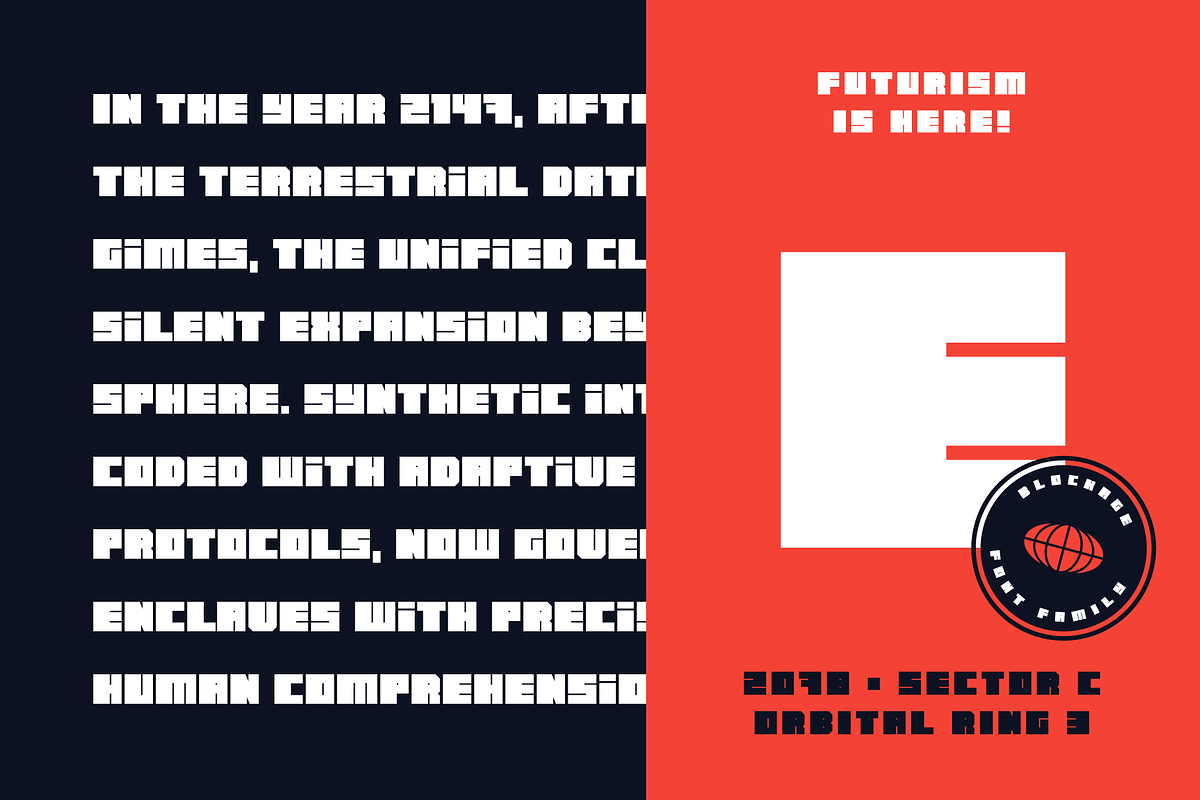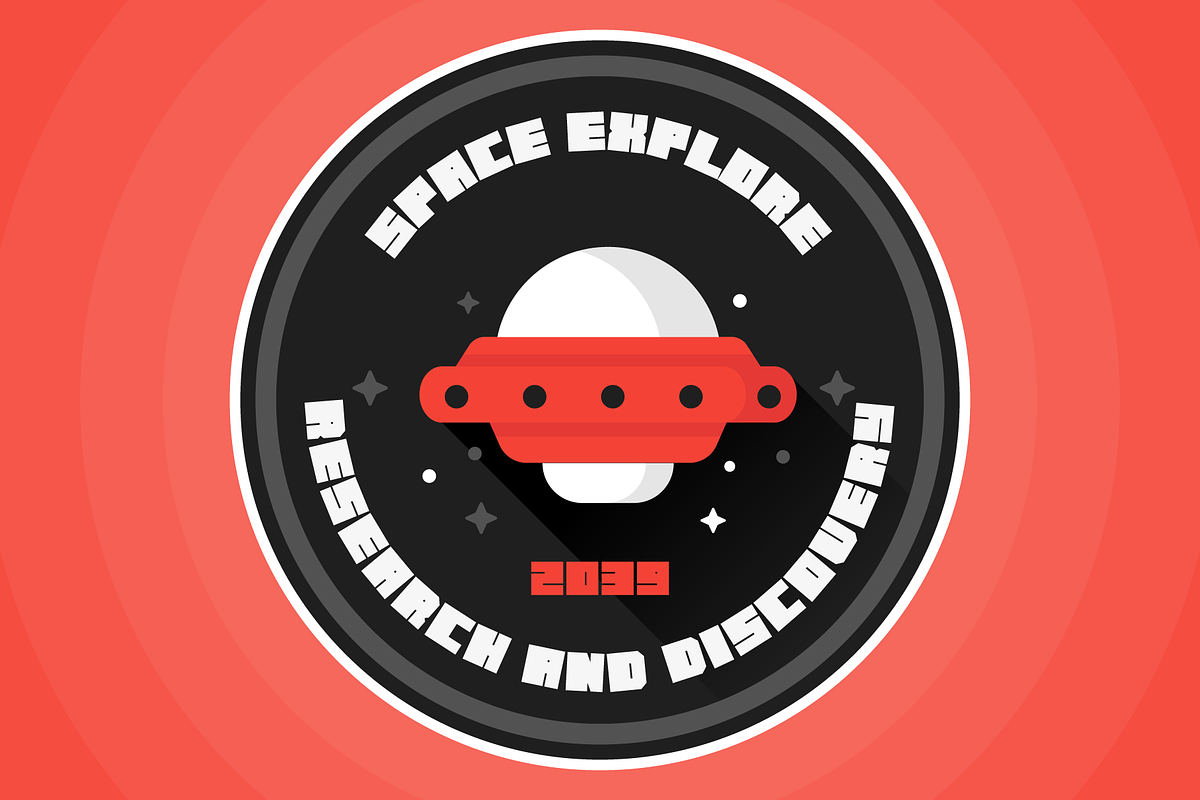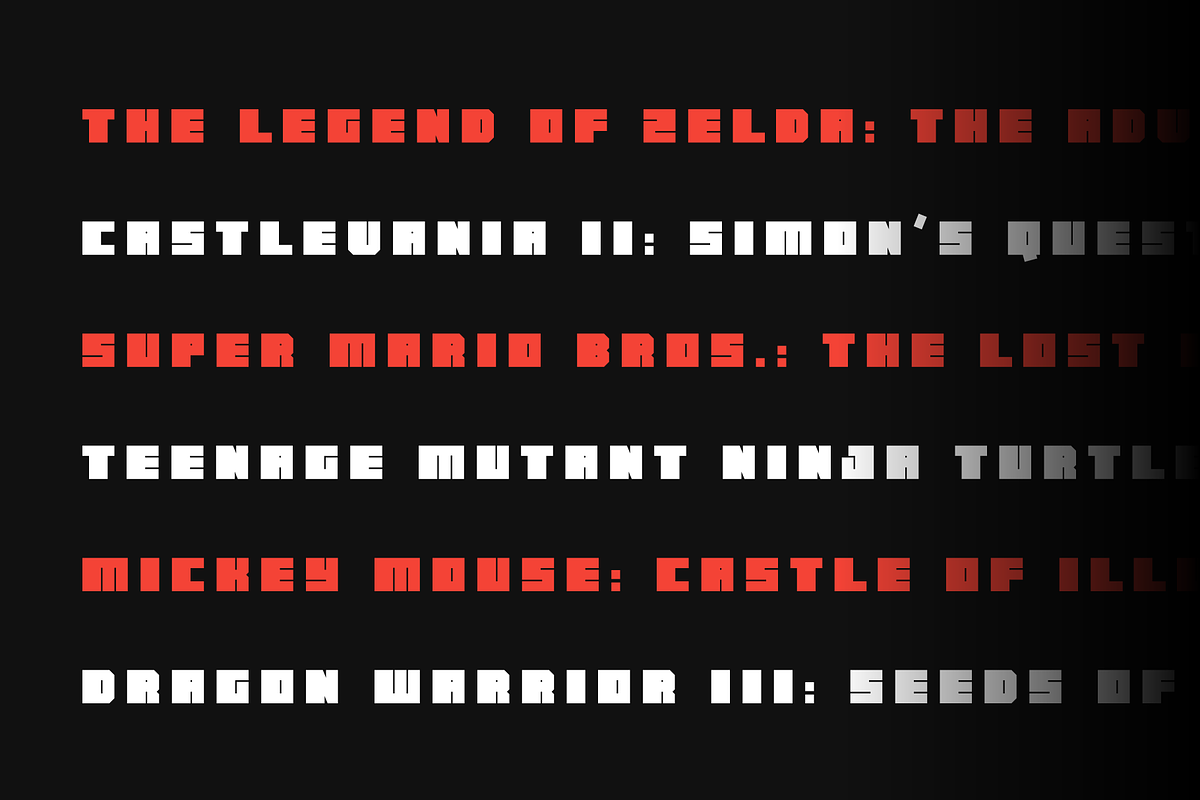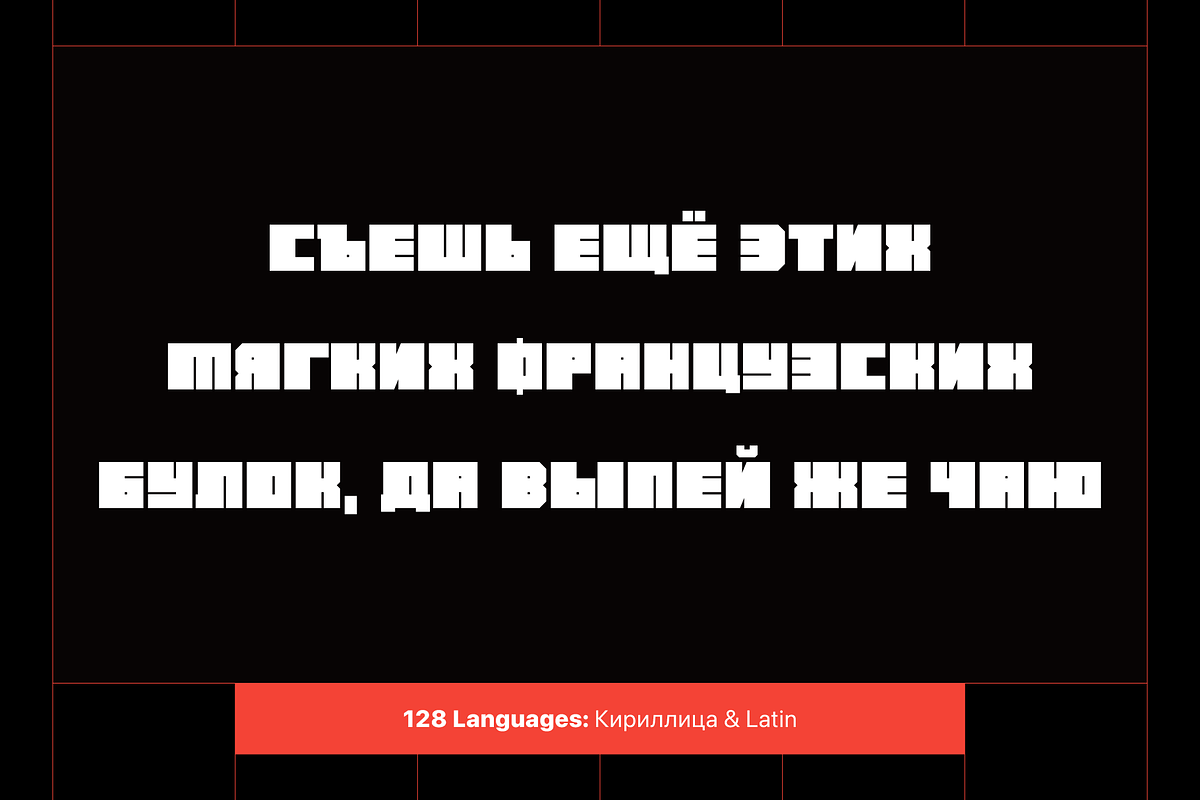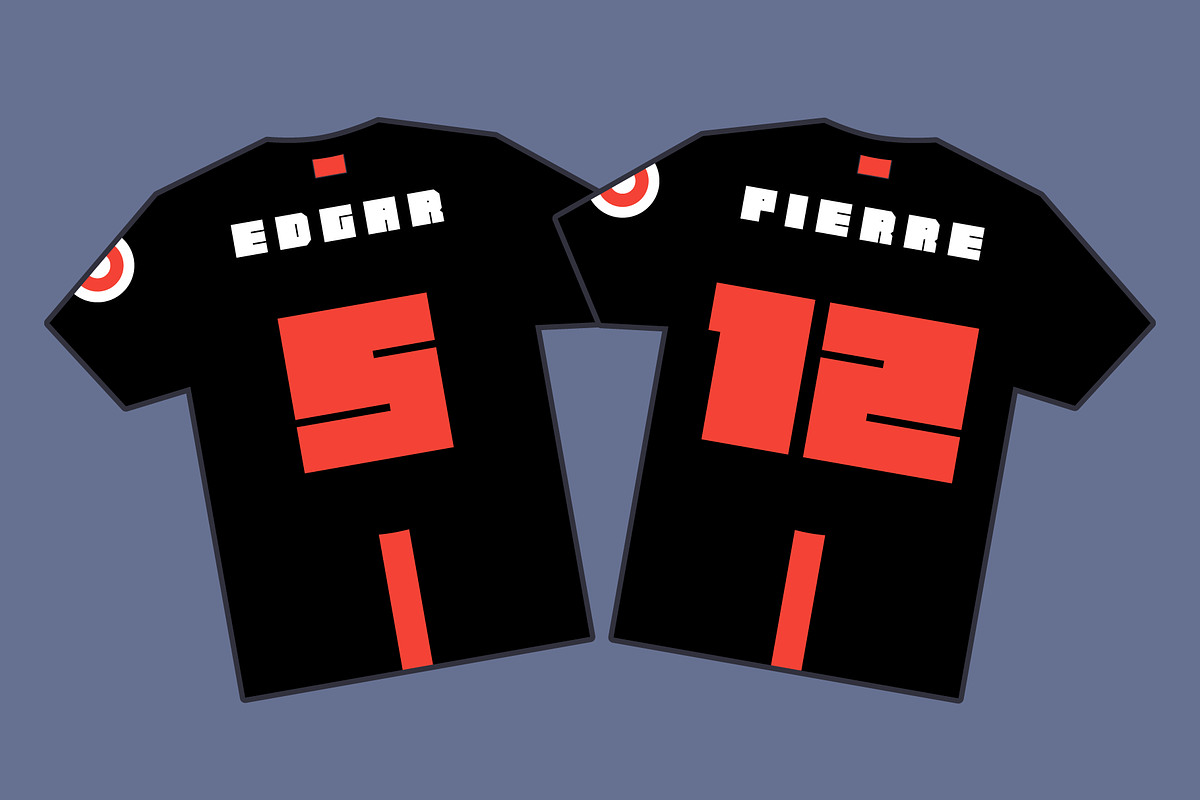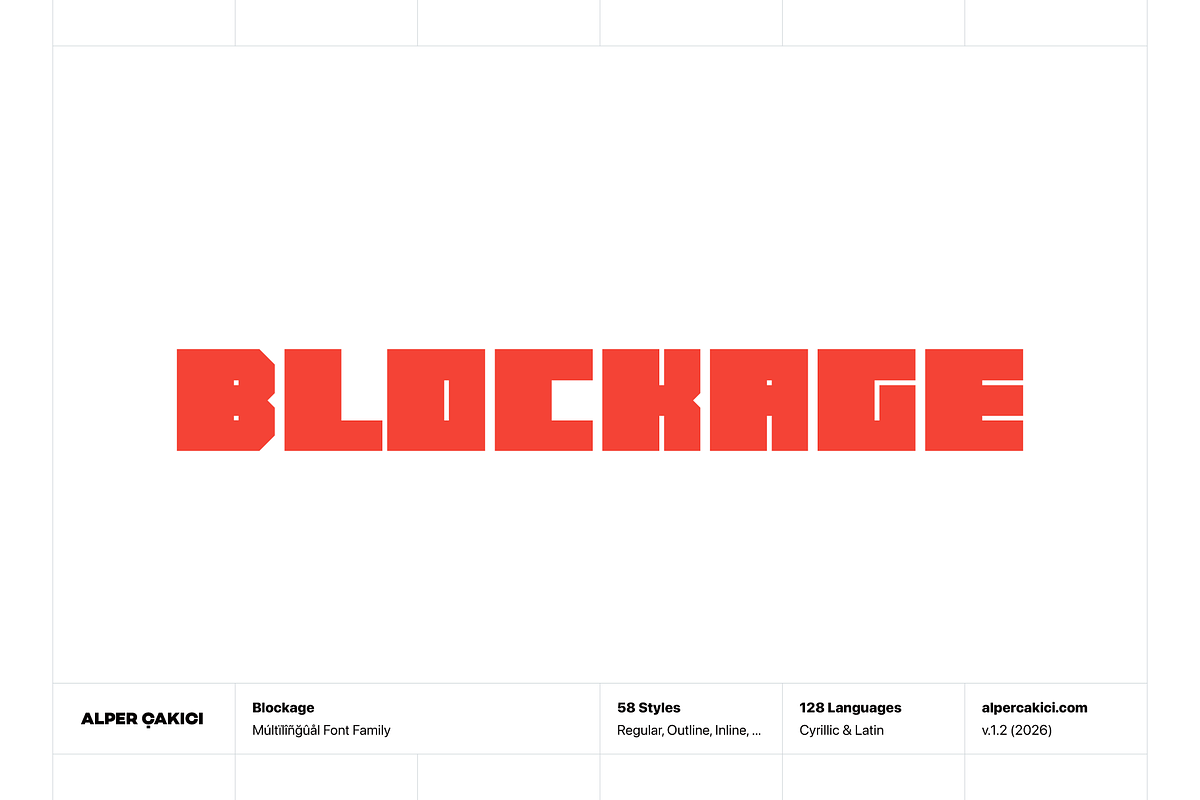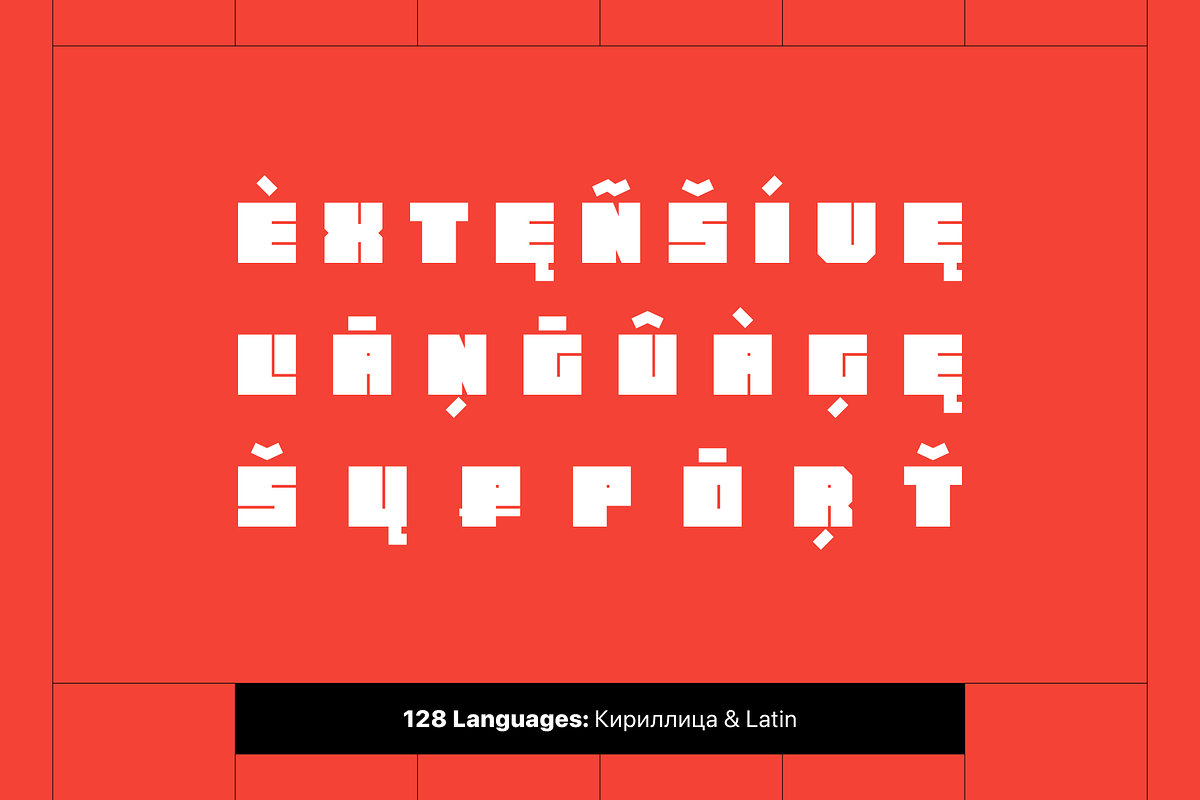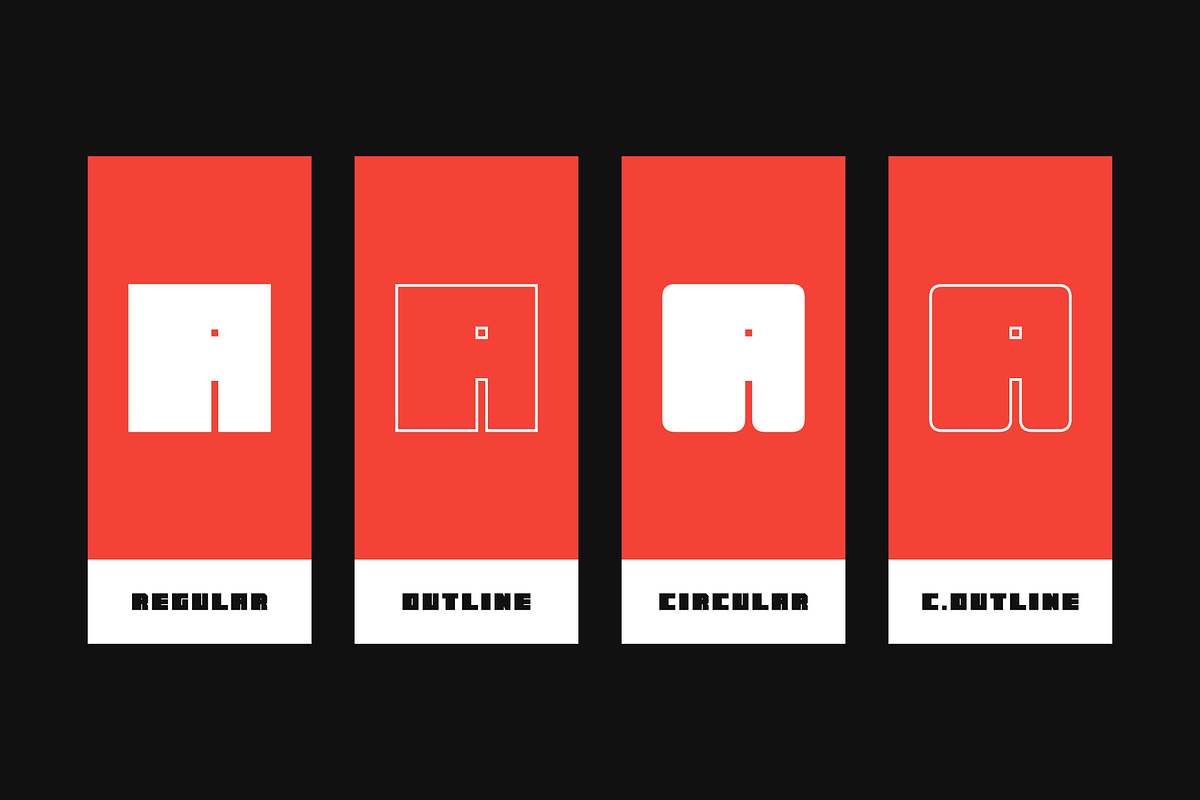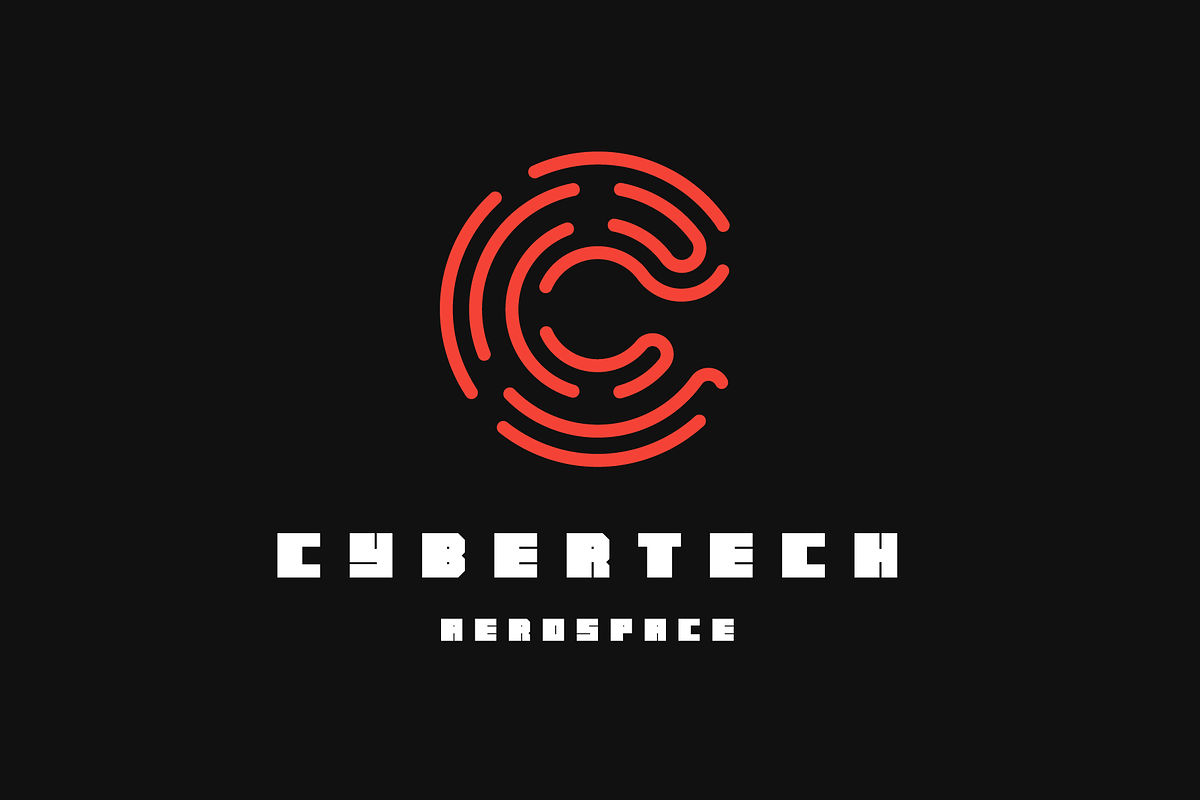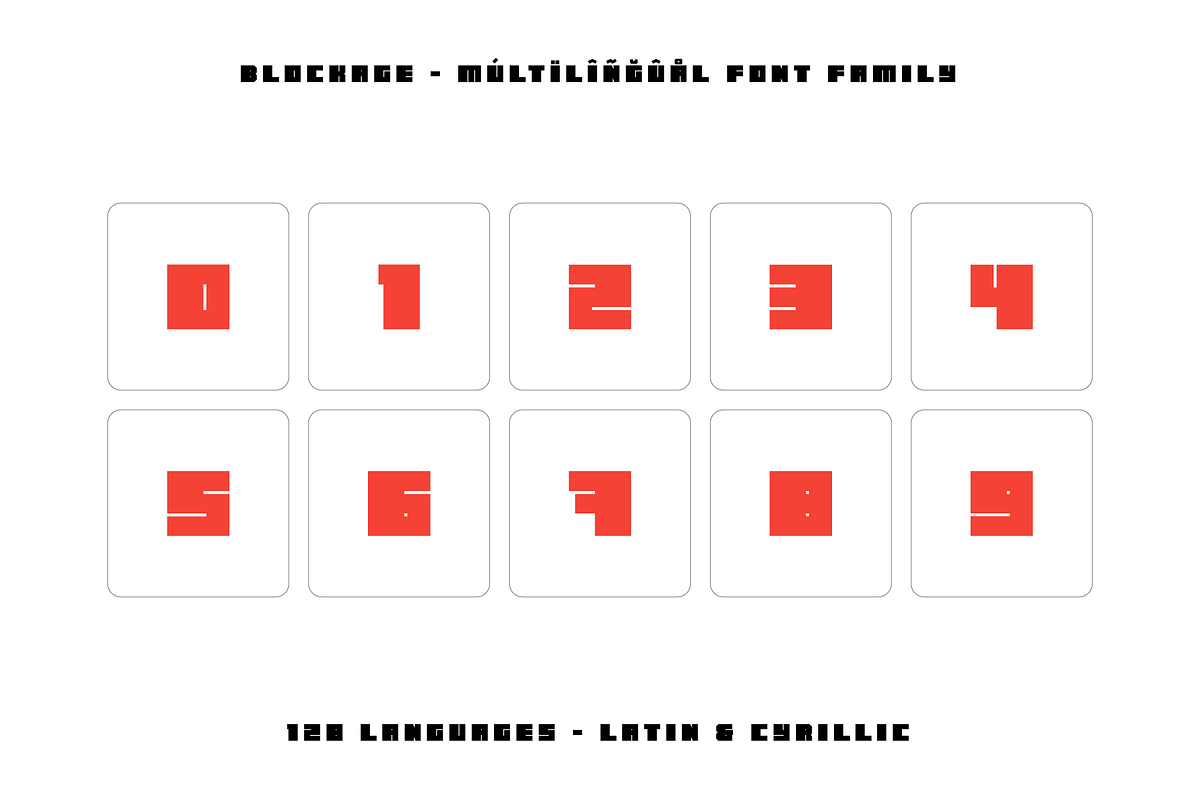
Blockage Block-Style Typeface
Blockage is a versatile block-style typeface family designed with strong square geometry and bold visual presence. Built for impact, Blockage blends structured forms with expressive stylistic variations, making it ideal for modern branding, posters, gaming graphics, packaging, and digital design.
The family explores a modular design system where the core square foundation evolves into multiple stylistic directions. From the sharp edges of Angular to the softer feel of Rounded, and the balanced geometry of Circular, Blockage provides designers with a wide creative range while maintaining a consistent visual identity.
Blockage includes numerous expressive treatments such as Brush, Pencil, Rough, Noise, and Eroded, which add texture and personality for projects that require a more organic or experimental look. For structured and graphic design work, styles like Inline, Outline, and Rimmed deliver strong decorative options that stand out in headlines and display settings.
Each style is accompanied by matching Italic versions, allowing for dynamic typographic layouts and greater flexibility across design systems.
With support for 128 languages, Blockage is built for global communication and works across a wide range of Latin-based languages, making it suitable for international branding and editorial design.
Whether used for futuristic visuals, bold titles, UI graphics, or creative typography experiments, Blockage delivers a powerful combination of structure, versatility, and expressive style.